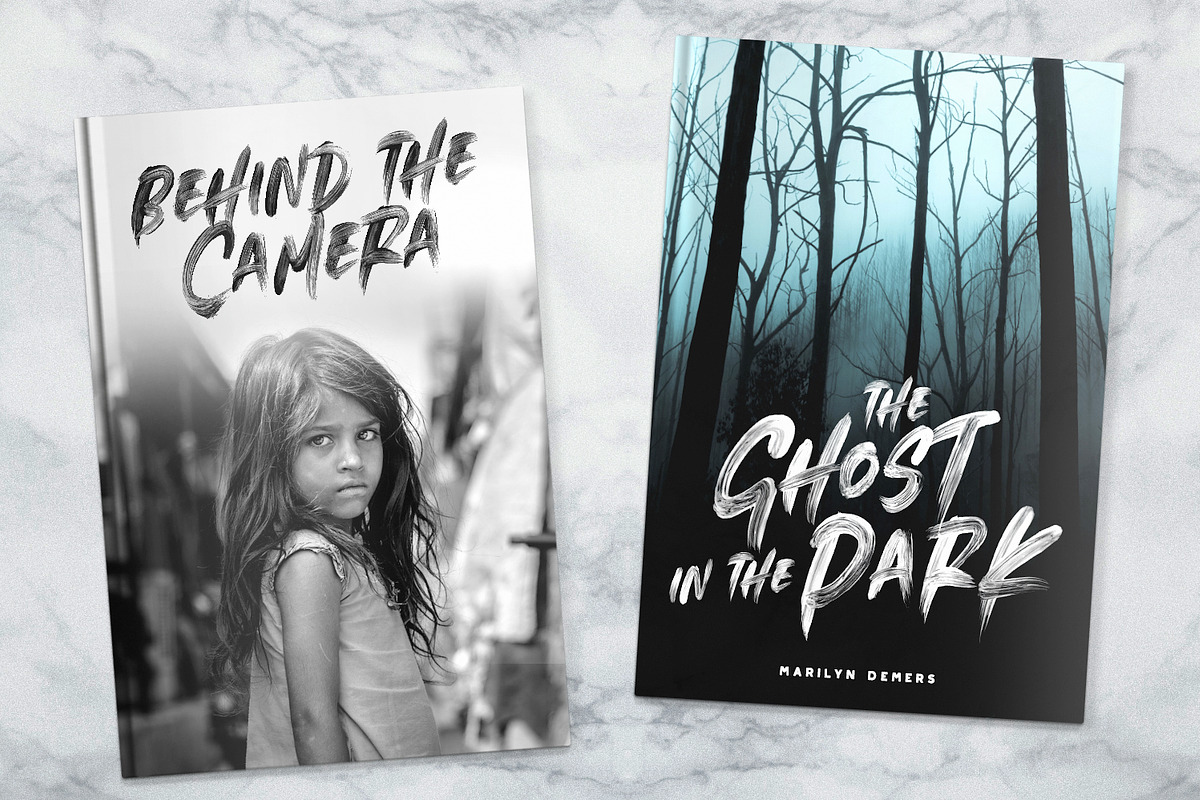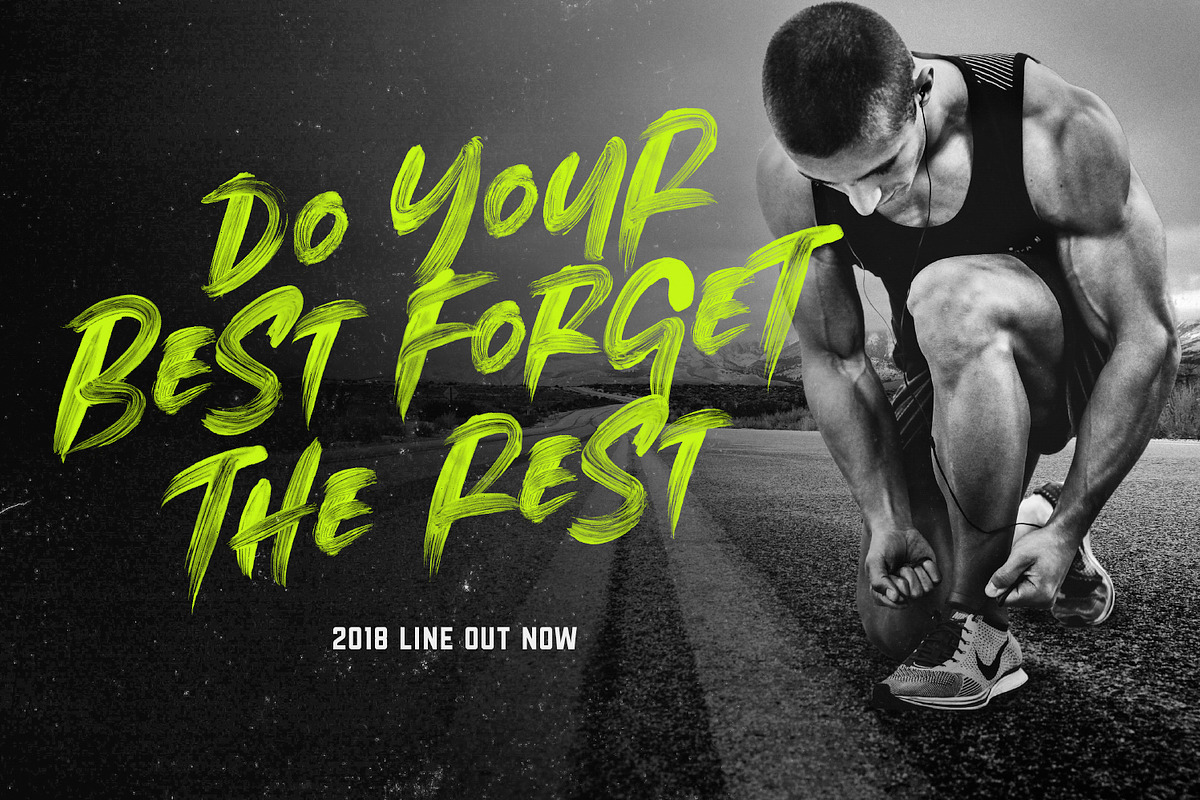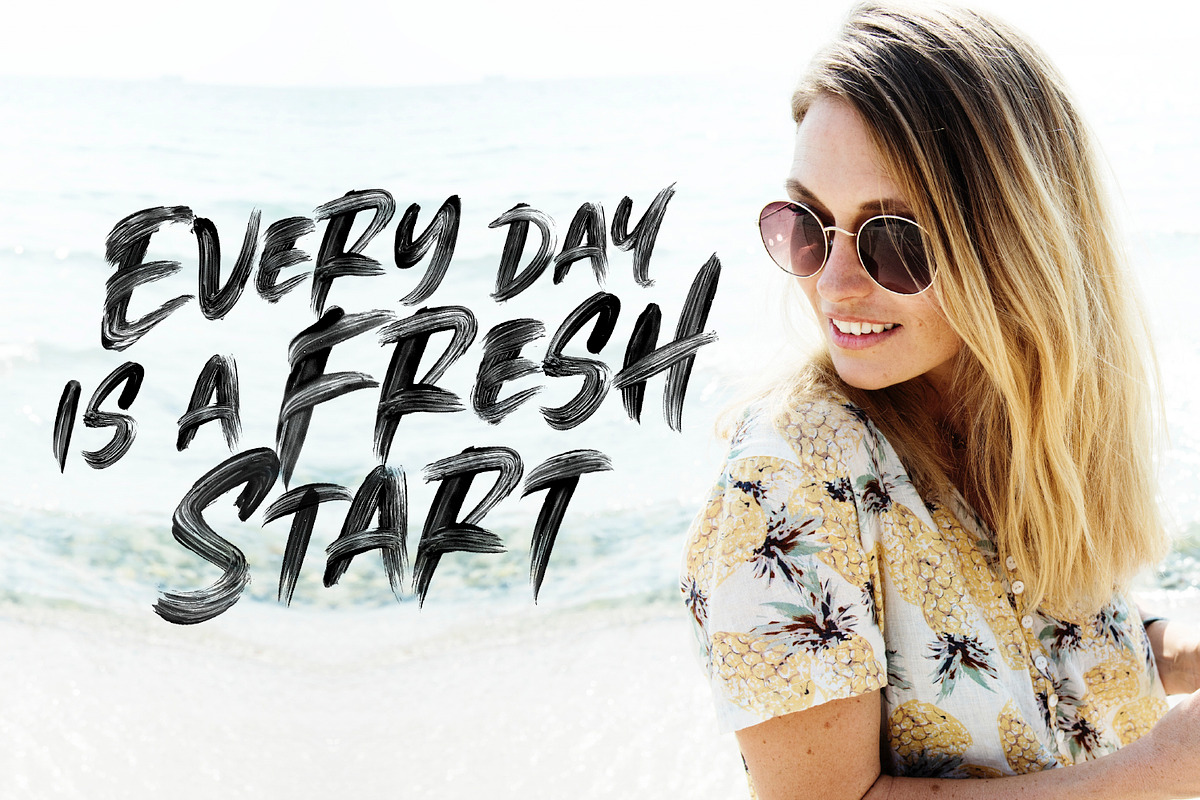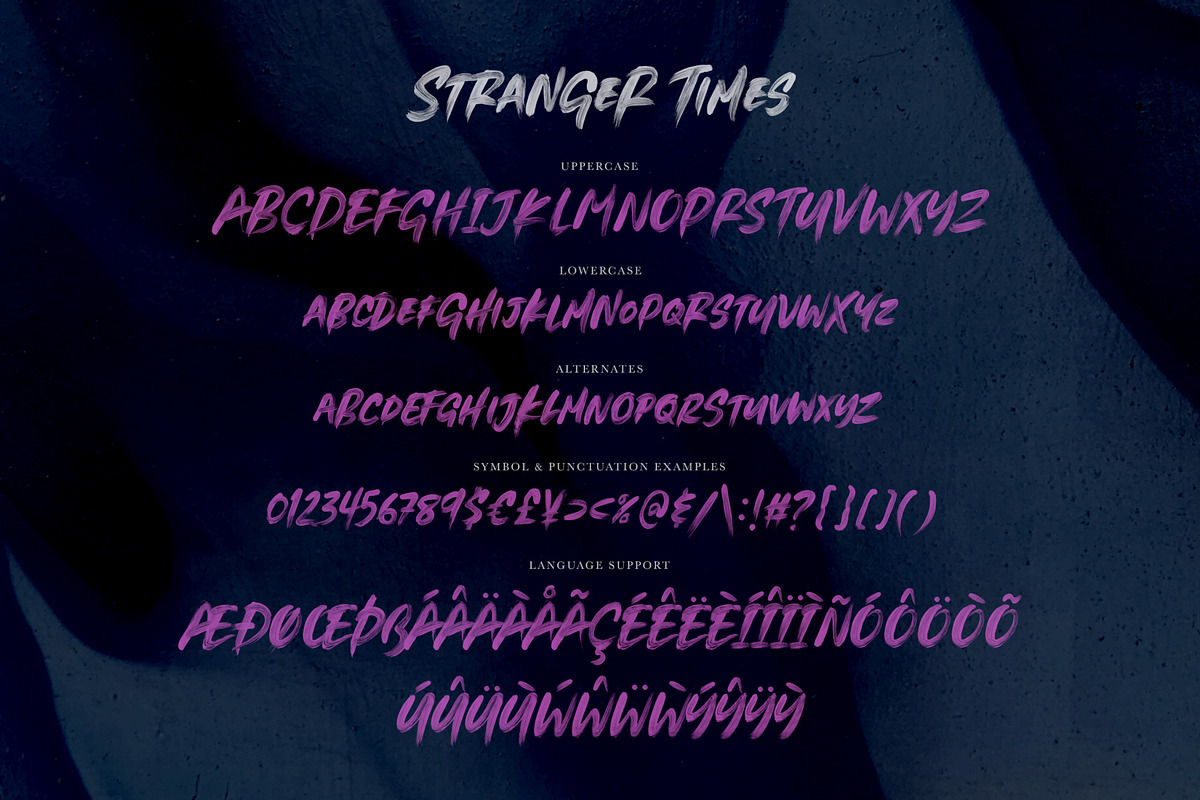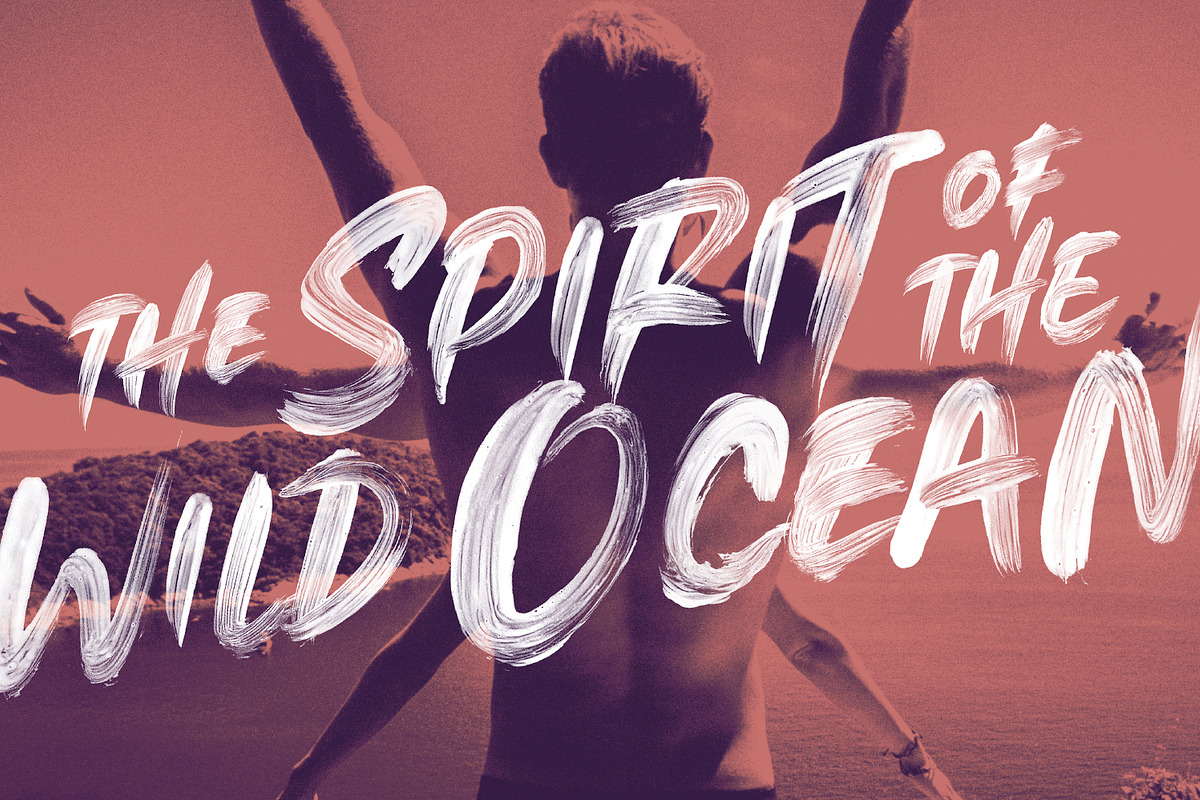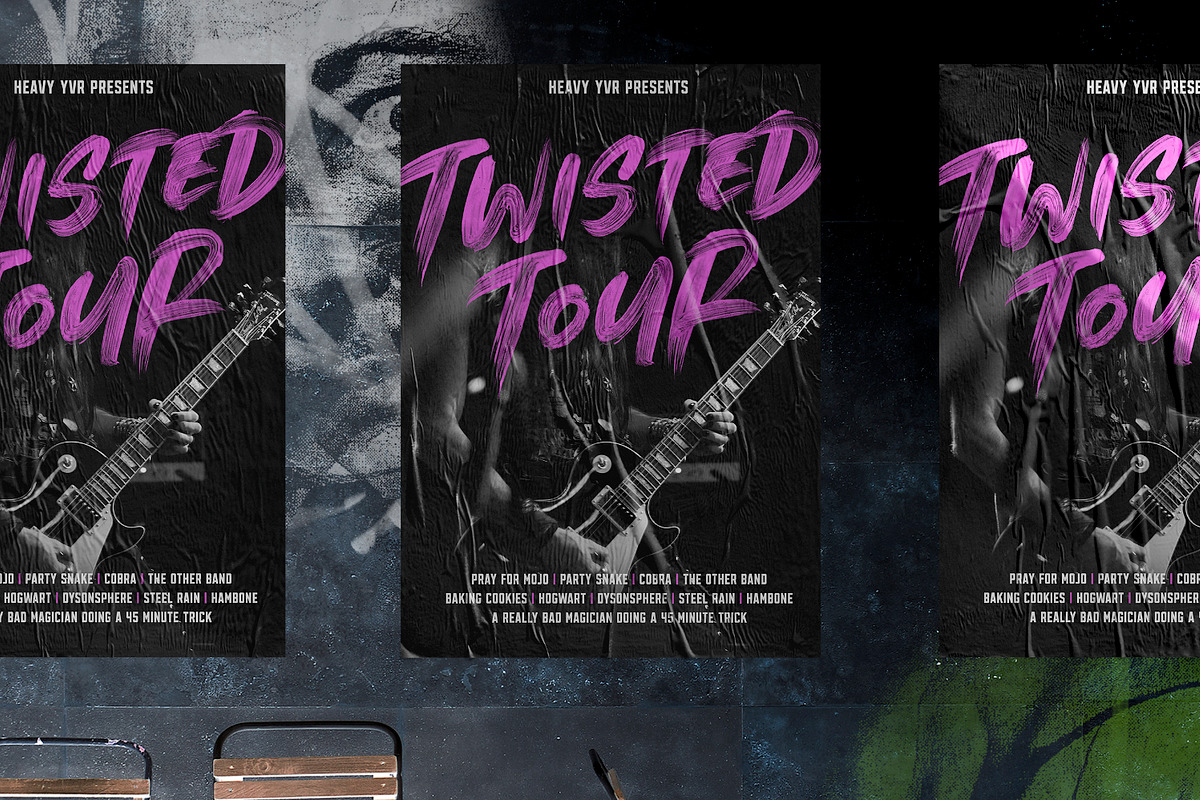
Stranger Times - OpenType SVG Font
Stranger Times goes above and beyond a typical brush font. Using OpenType-SVG technology, this font preserves all the high definition detail of the original painted letters. It truly looks realistic, and the difference compared to regular vector fonts is staggering. Each letter has been painted 3 times, with a variance in sizes: Small, Medium and Large. Using the uppercase, lowercase and alternates, you can get the perfect variety of size in between letters.
So how does it work? Instead of vectorizing the letters, I invented a method that uses transparency effects in order to get the quality that you see. This is all made possible thanks to the latest developments of the OpenType-SVG format, and the integration of that technology into Photoshop. Stranger Times installs like any other font, and can be used in any color, on any background. Check out the example video to see everything this font can do!
- Swash Brushes - We’ve also included a bunch of underlines to help spice up your designs.
- Using the uppercase, lowercase and alternates, you can get the perfect variety of size in between letters.